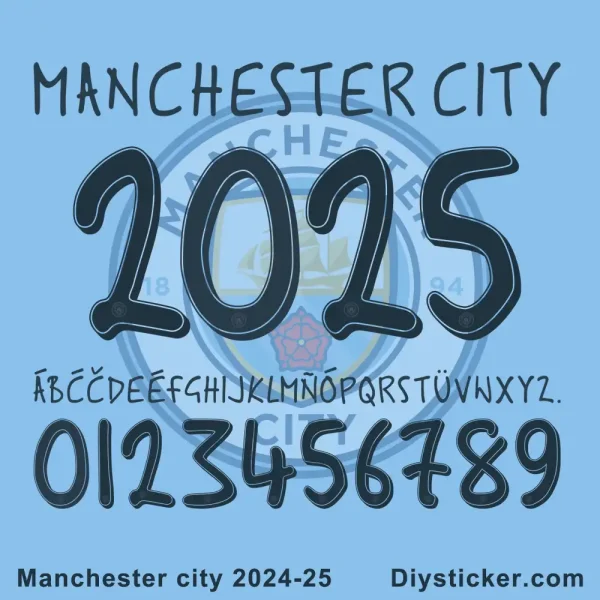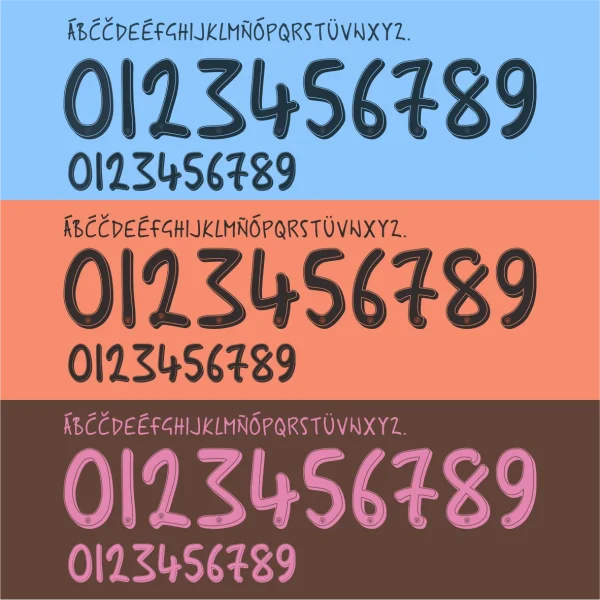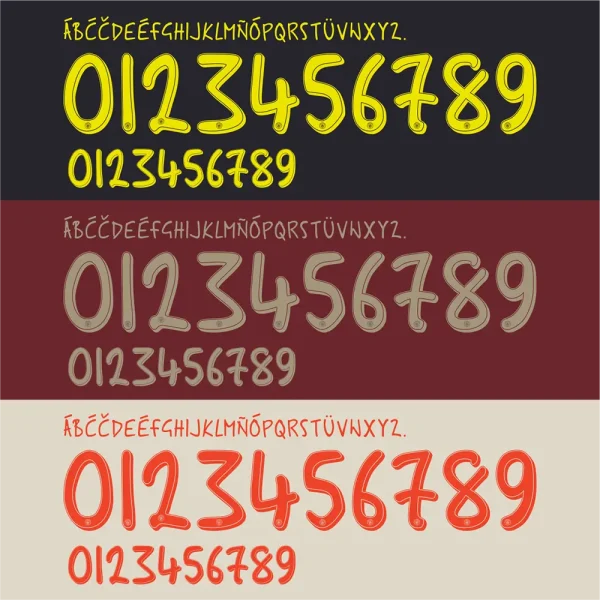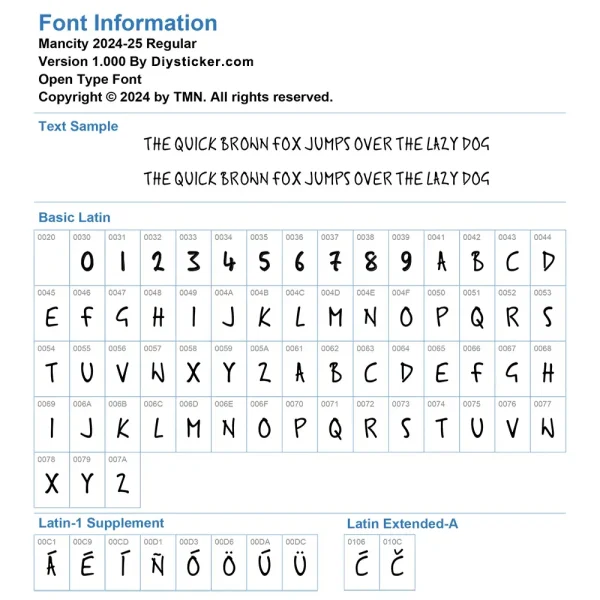
Unleash your creativity with the remarkable Manchester City 2024-2025 font. This exclusive font is not only visually appealing but also highly versatile.
Manchester music legend and lifelong City fan Noel Gallagher designed the font for Manchester City’s 2024/25 shirts. His handwriting features on the back of the team’s shirts in all Champions League, FA Cup, and Carabao Cup matches. The ‘Definitely City’ jersey is exclusively worn in Champions League matches and will not available with Premier League printing or badge. Get your shirt personalised with your favourite player and make it unique by adding the official UEFA Champions League badge on the sleeve.